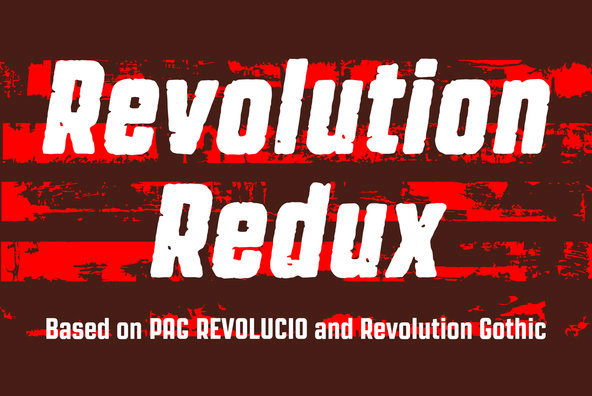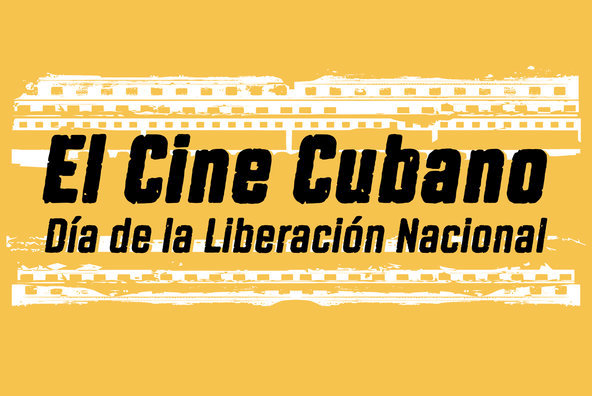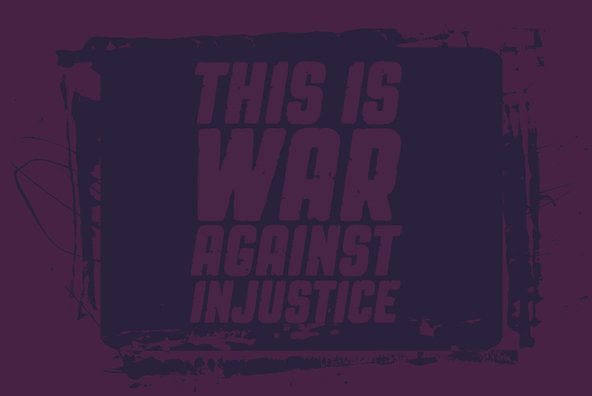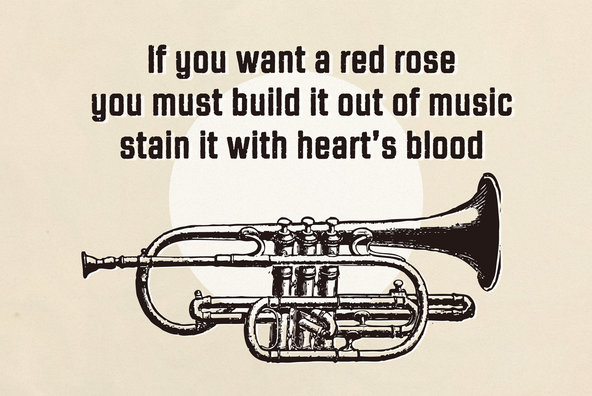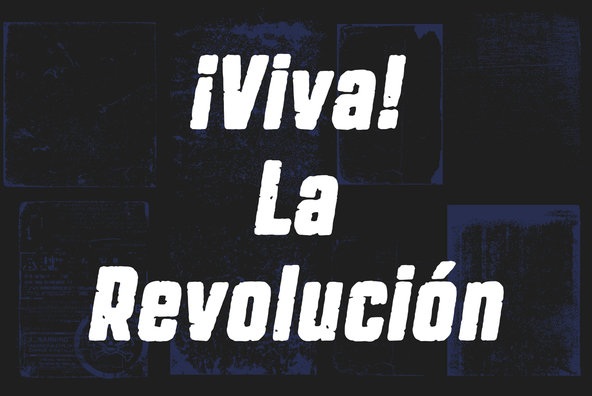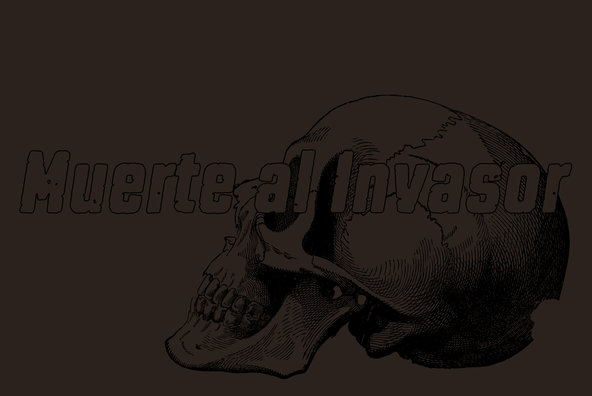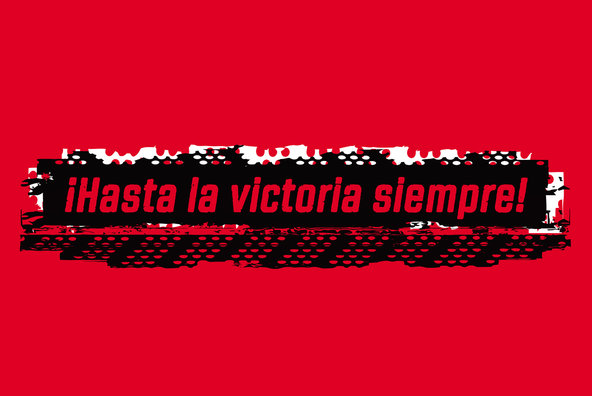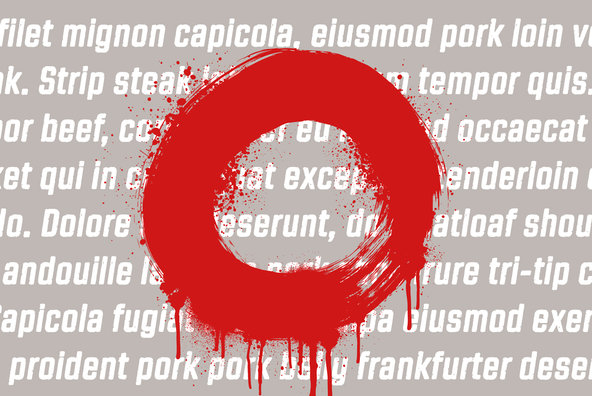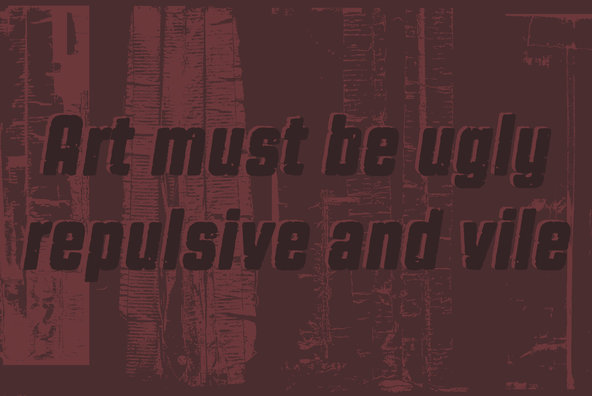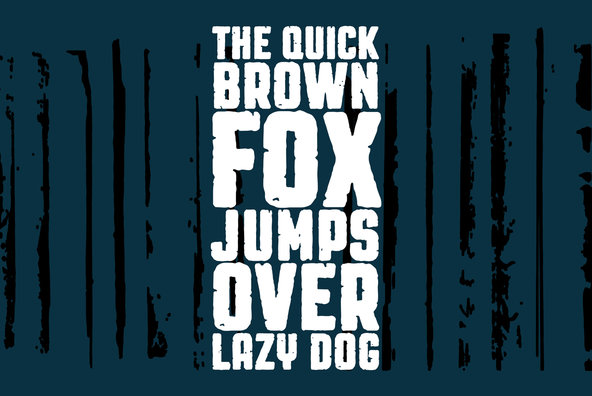
Revolution Gothic P
Foundry: Ryoichi Tsunekawa
Revolution Gothic P font family is designed based on Revolution Gothic and a distressed offshoot from the original. Revolution Gothic is an arranged and extended version of PAG Revolucion released from Prop A Ganda type foundry in 2008. The original font is inspired by retro propaganda posters and wallpainting in Cuba from the 60s to 80s. And the original PAG Revolucion is the most popular font from Prop A Ganda. The glyphs that damaged by printing the original had been tweaked by hand work with great care to be looked like natural damaged effect. This Revolution Gothic P family contains basic Roman Italic Bold and it s Italic to suit a wide range of your creative works and it will be one of the most powerful solutions for printing and web.